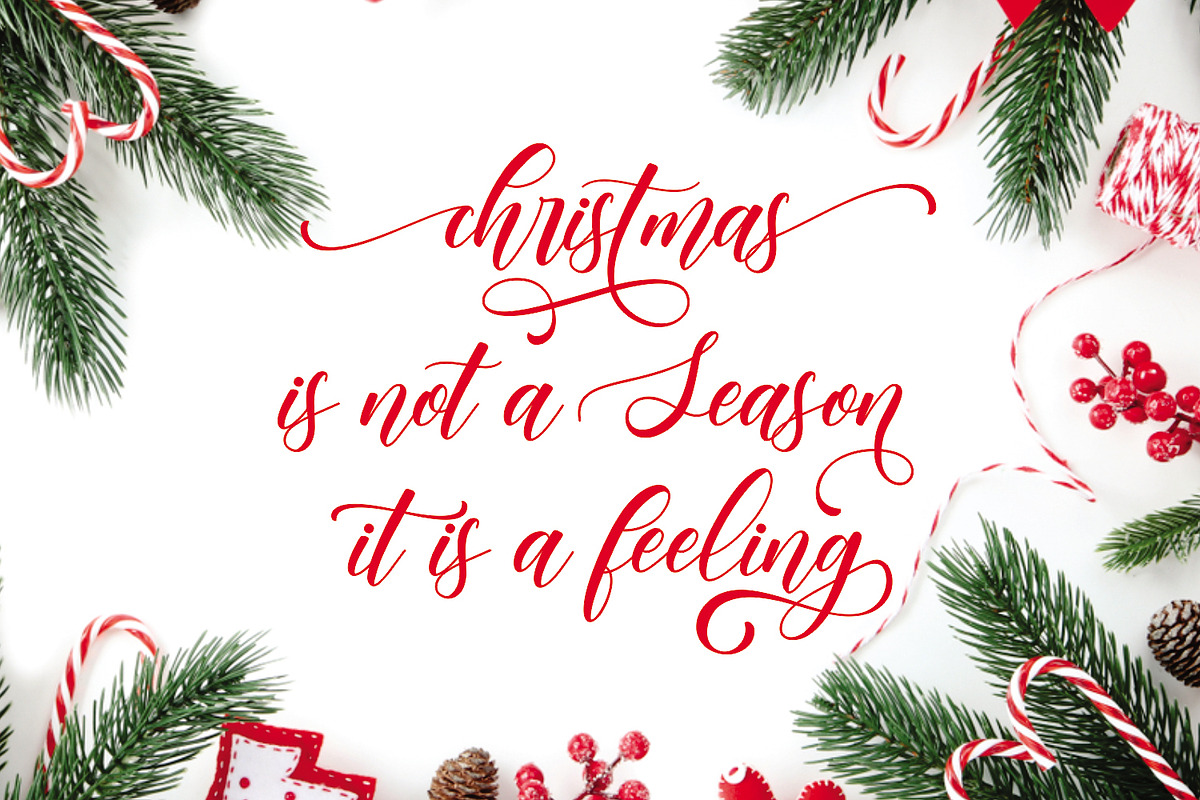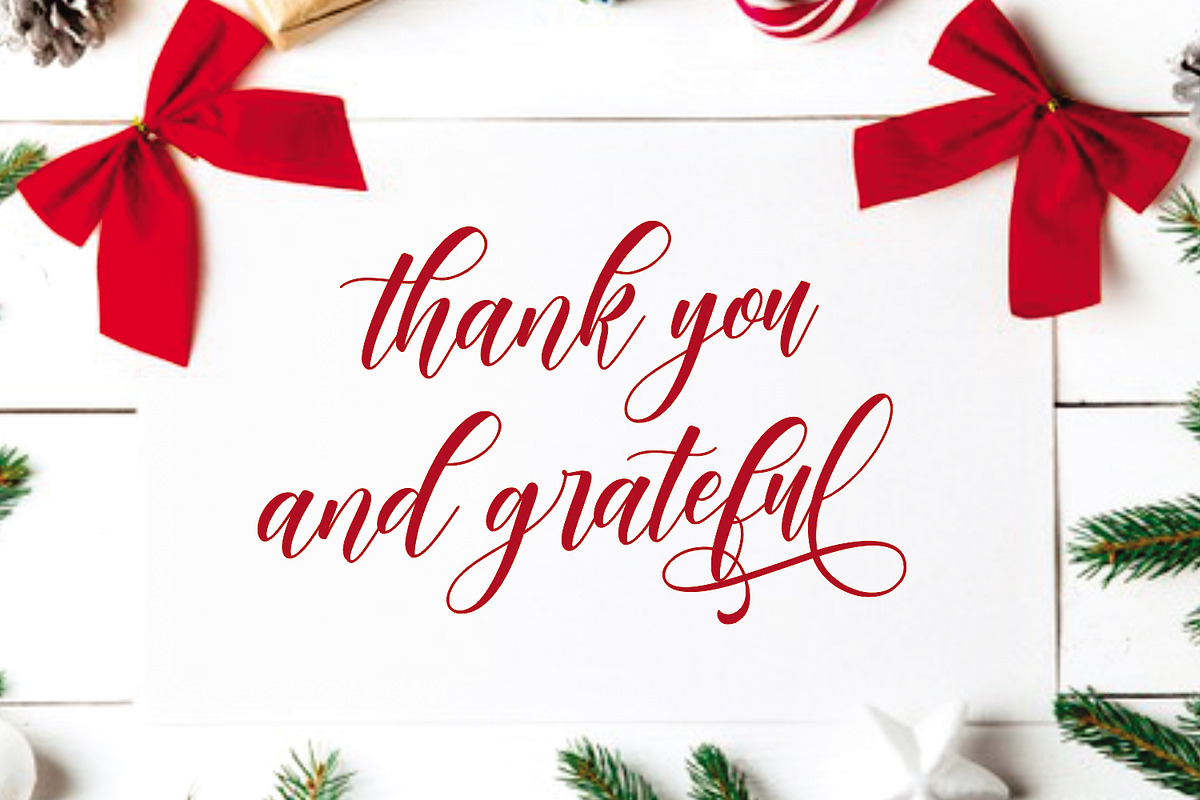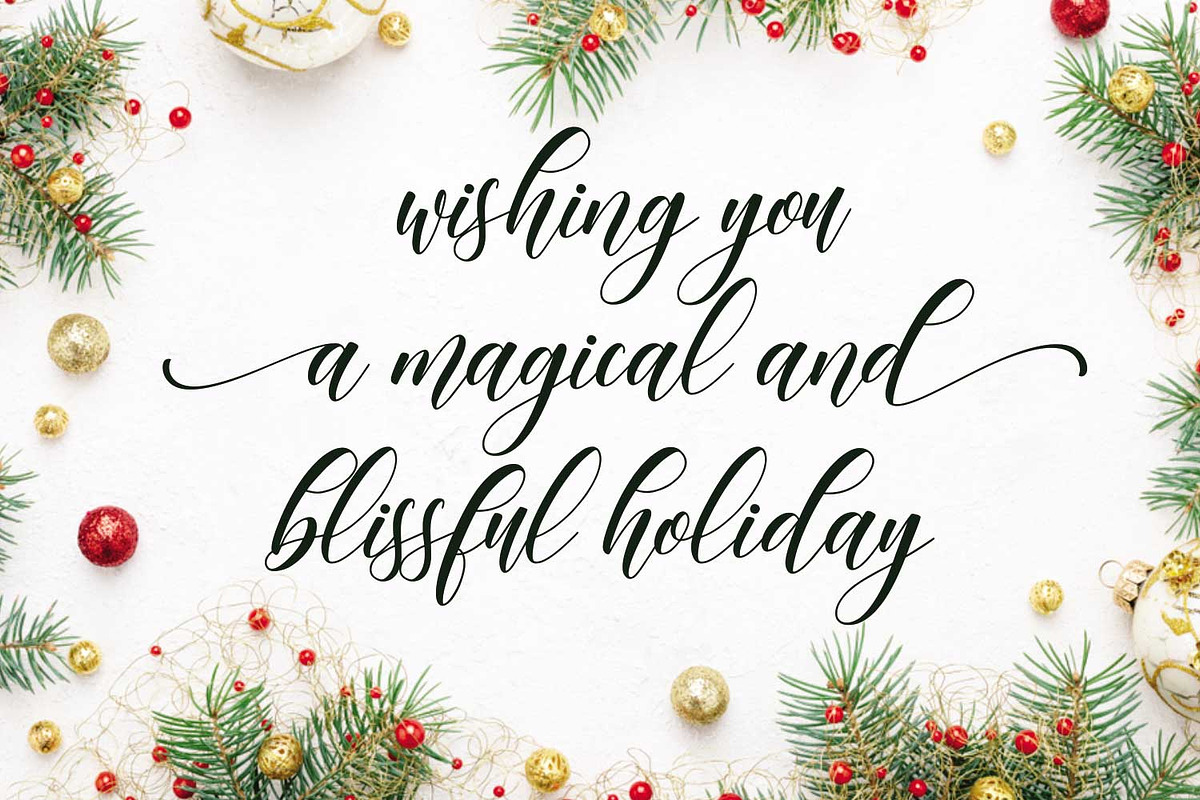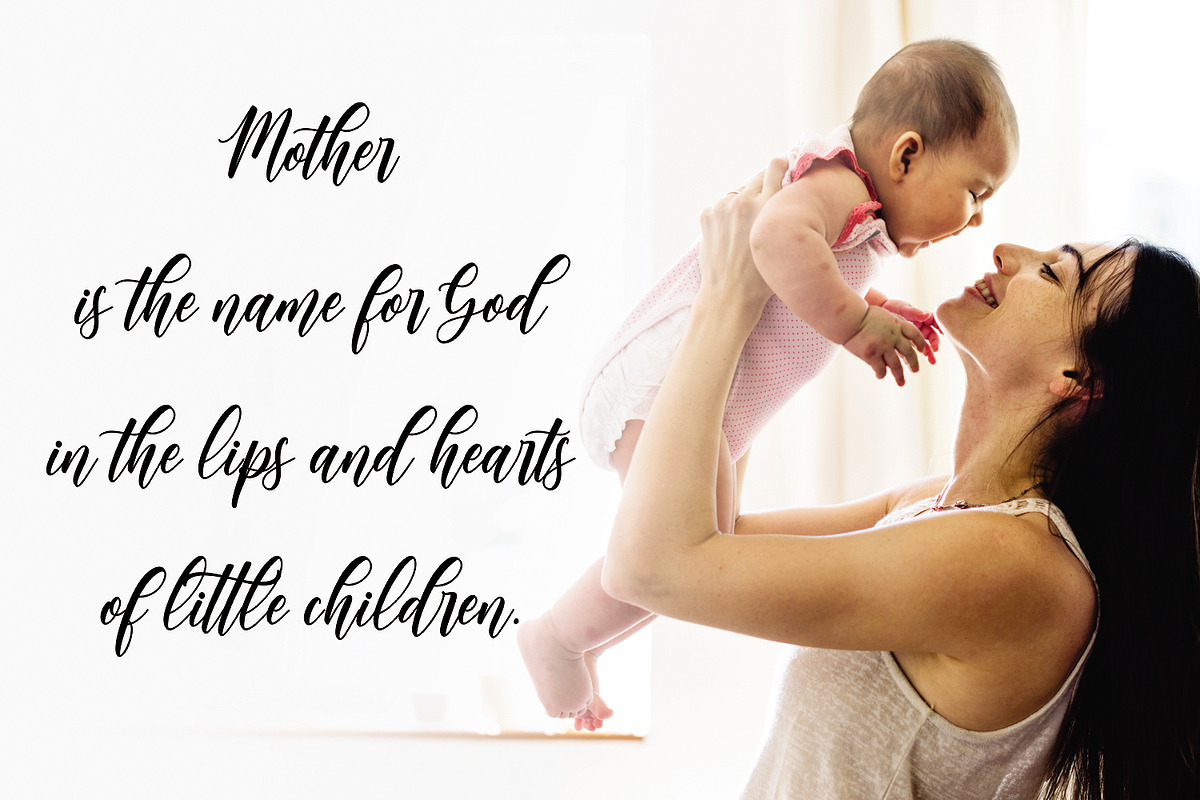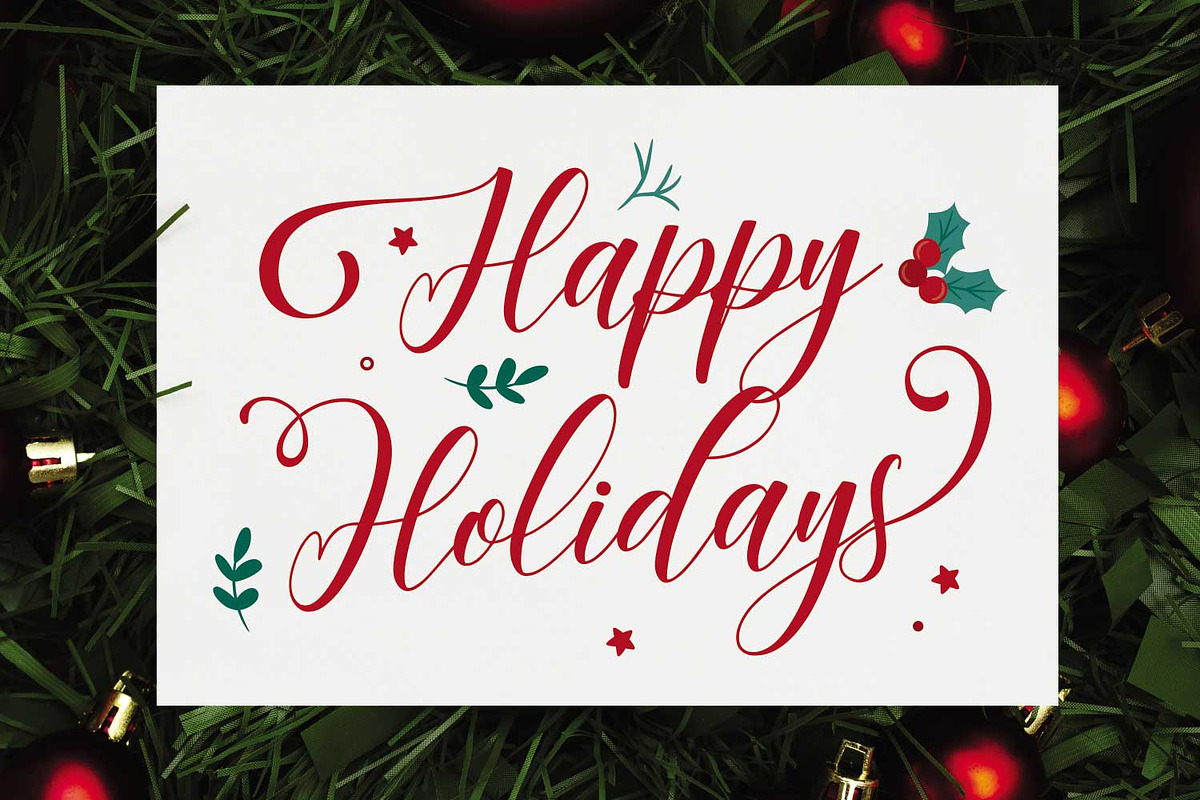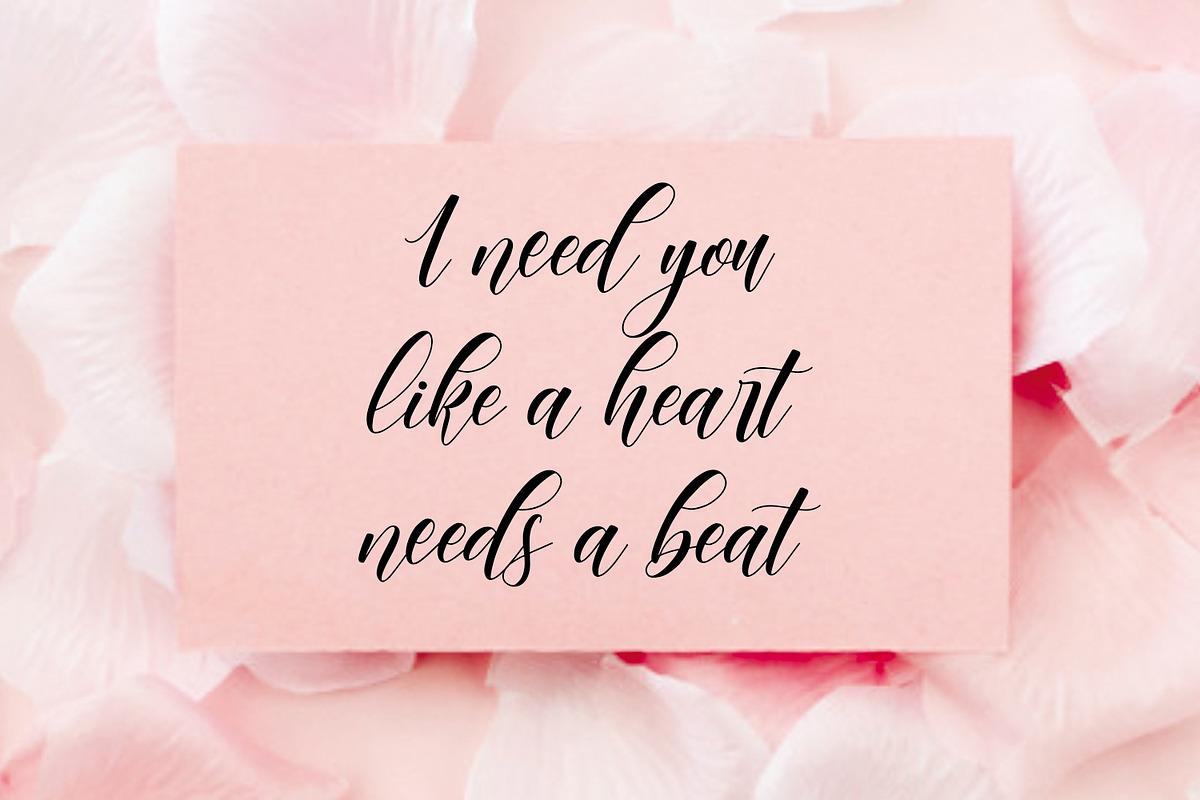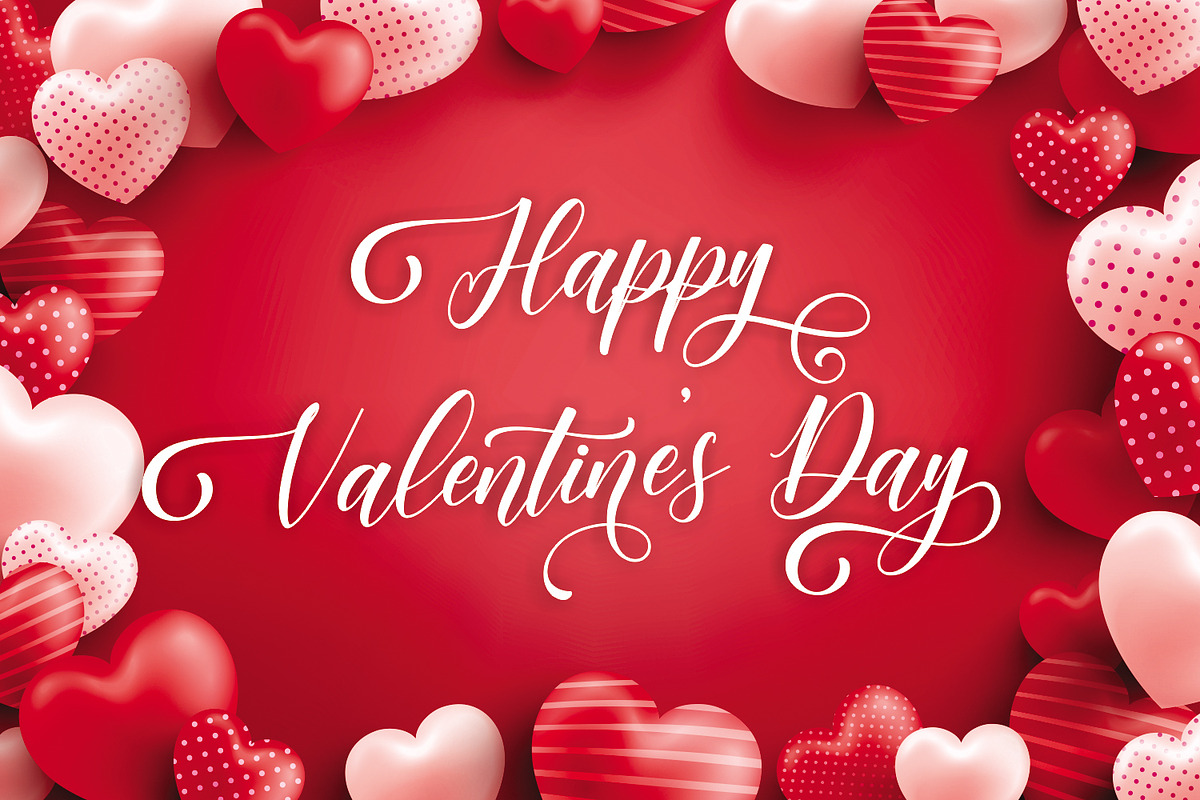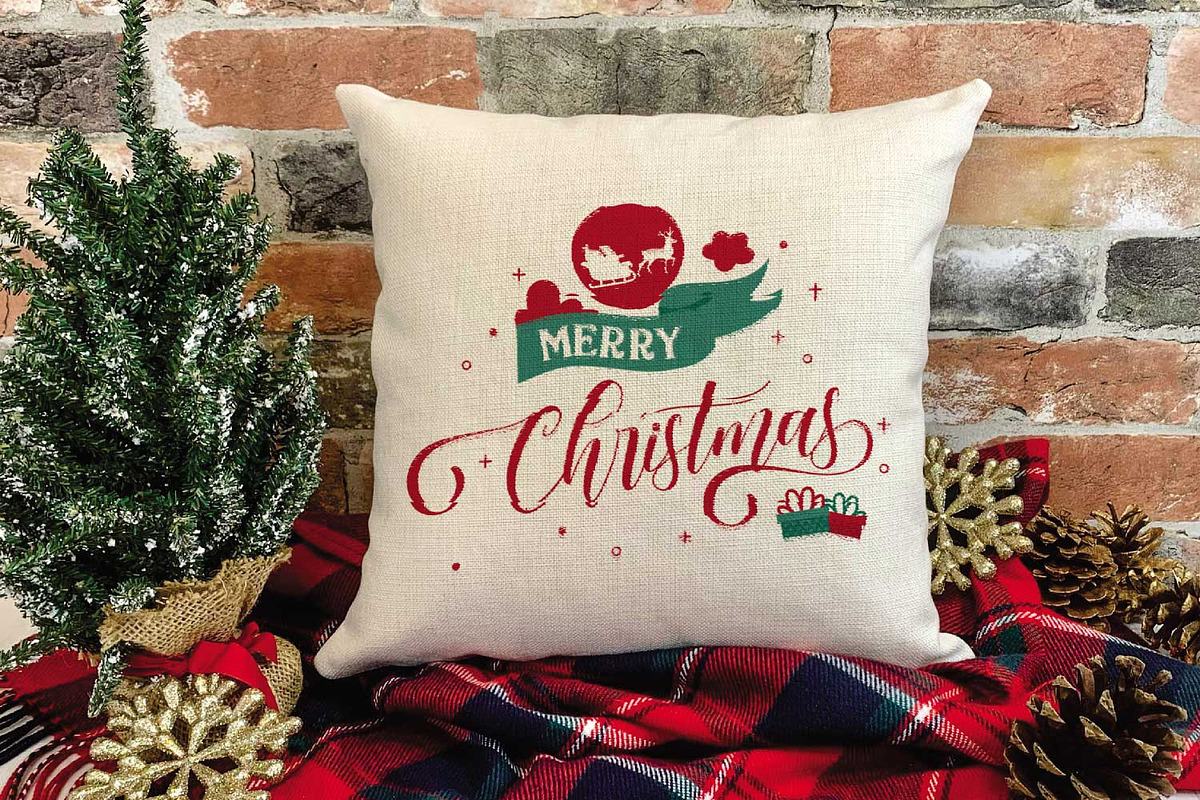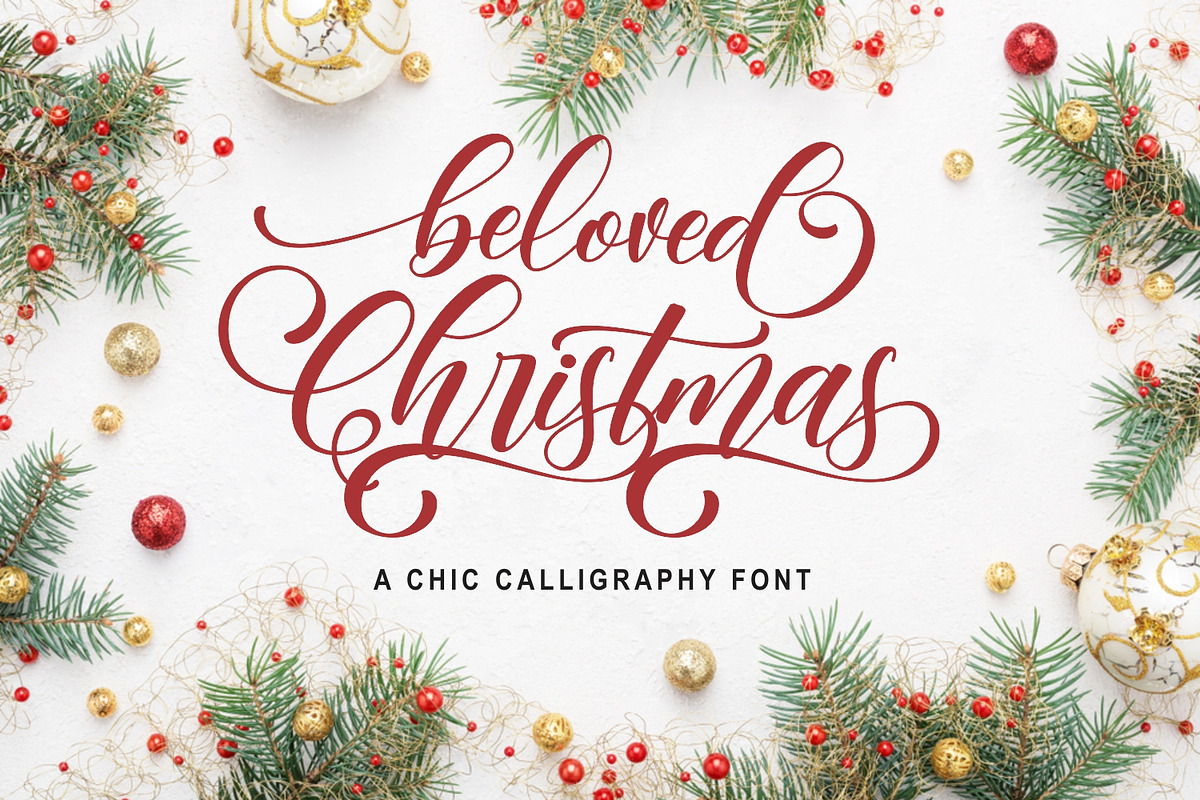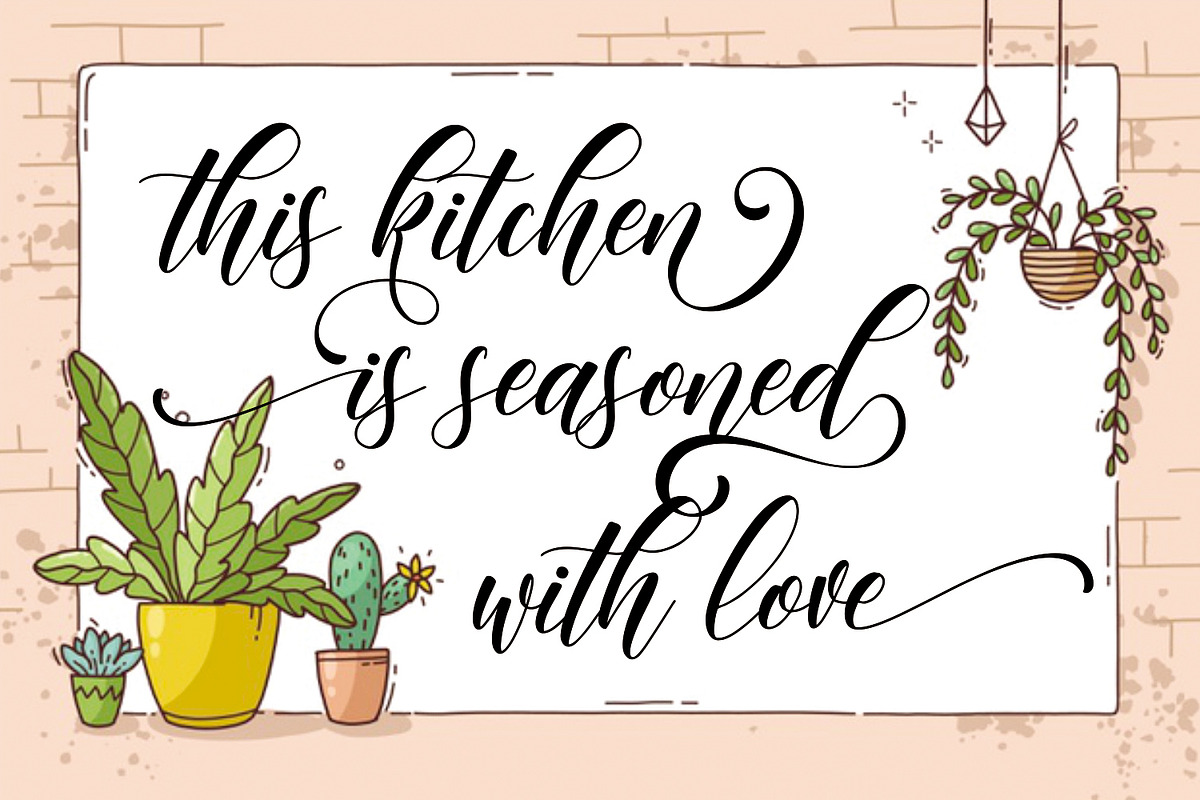
Beloved Christmas
Beloved Christmas is a bouncy calligraphy font.
It is Christmas theme holiday. And It is PUA encoded which means you can access all of the glyphs and swashes with ease!
This font is ideal for crafting, branding and decorate your any project. This font are perfect for wedding invitation or your blog. Also with their help, you can create a logo or beautiful frame for your home. Or just use for your business, book covers, stationery, marketing, magazines and more. Fall in love with its incredibly versatile style and use it to create spectacular designs!
Use this font for any crafting project that requires a personalized look!